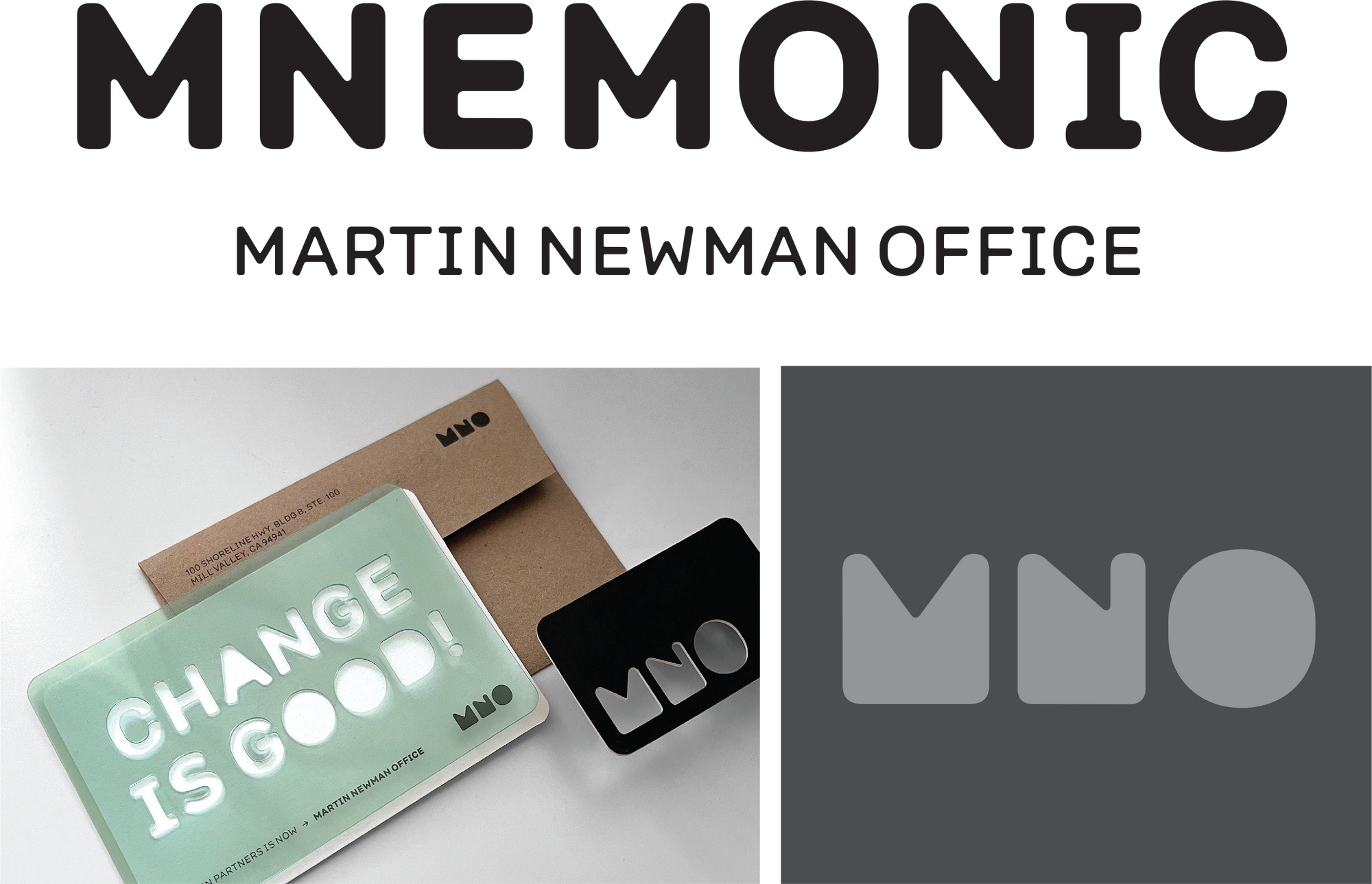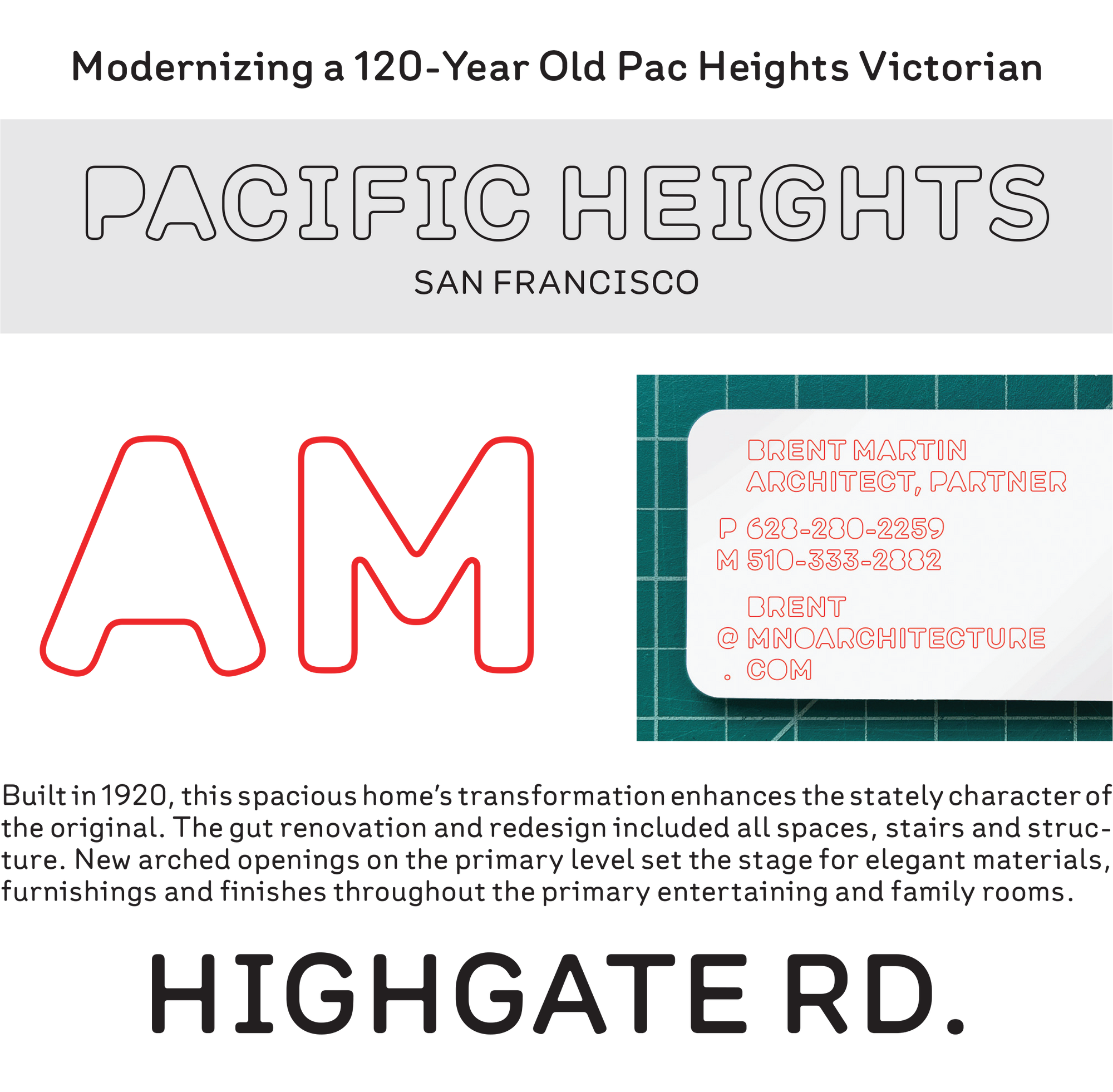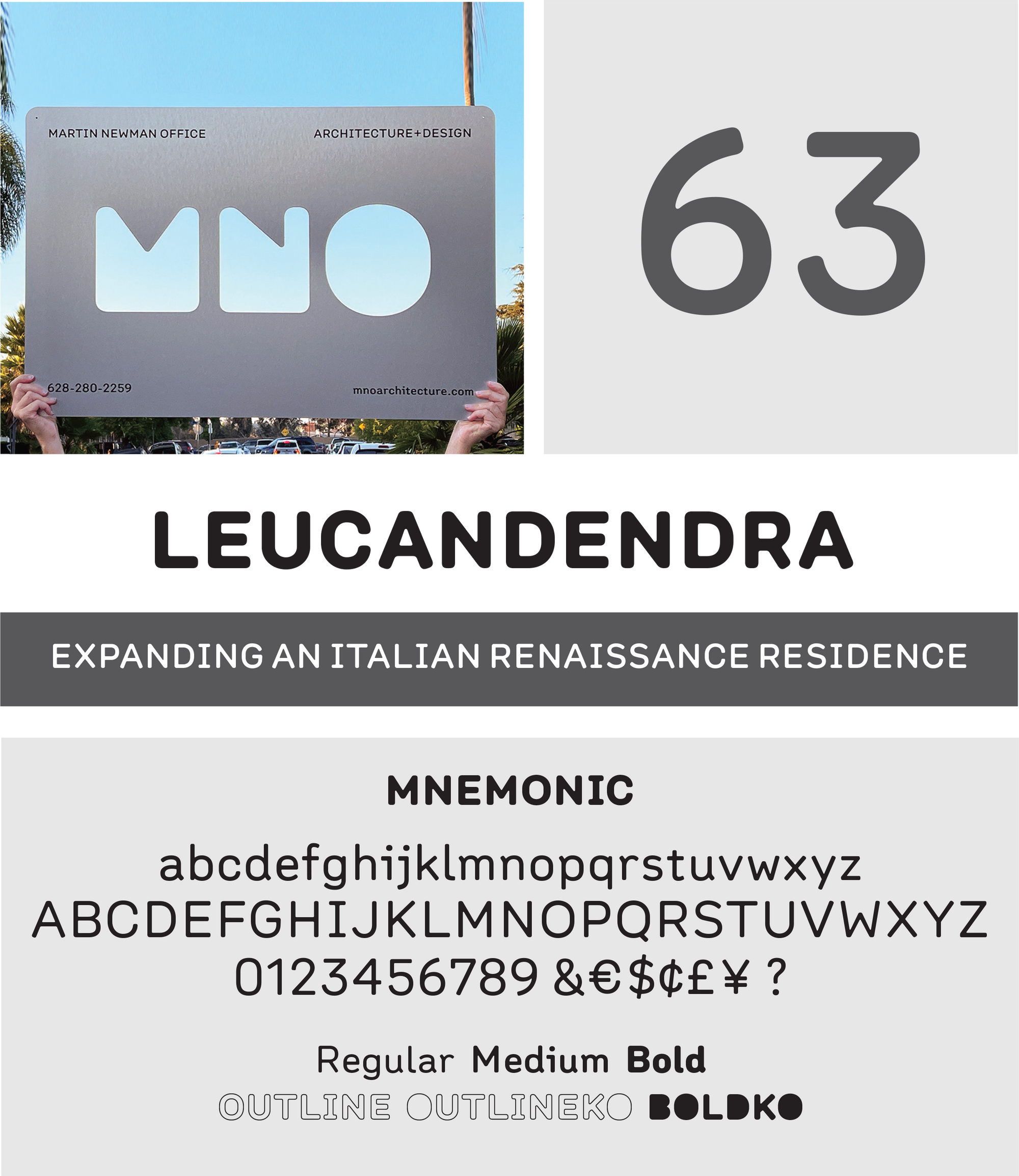
Mnemonic, MNO Architecture + Design
As part of their rebranding, Martin Newman Office approached LuxTypo to create the identity for the architecture firm. The immediate request from Brent Martin, founding partner, was the desire to have a proprietary typeface be the main element to the identity. Initially starting with the MNO logo, the idea of the 'architect's template' extended beyond the initial mark and into a typeface. Mnemonic has proven to be a dynamic asset with its versatility and distinction.